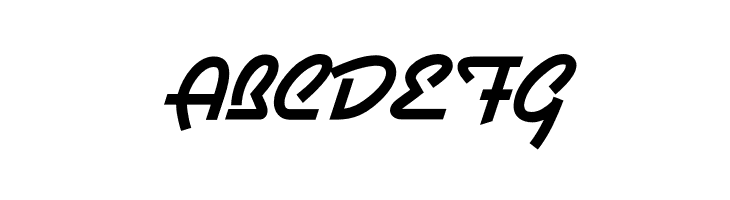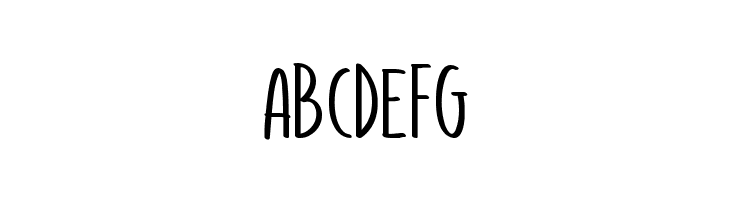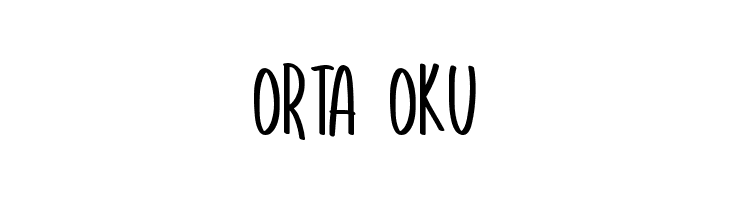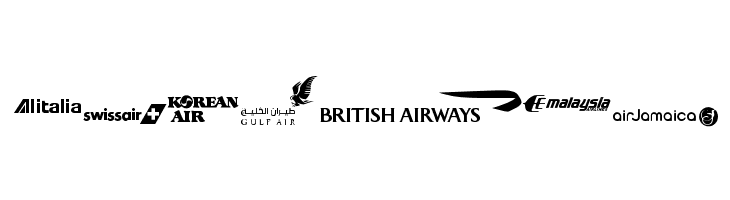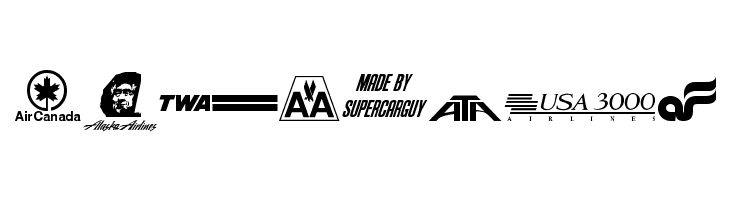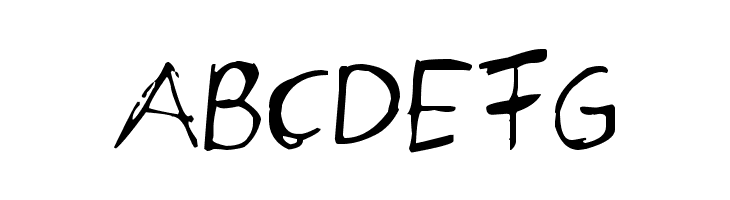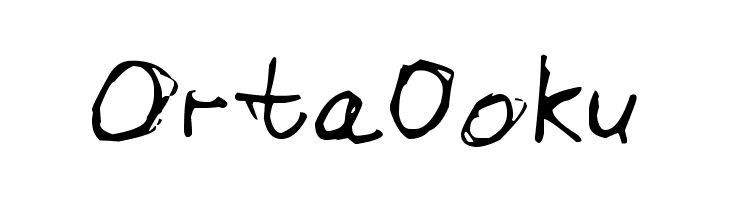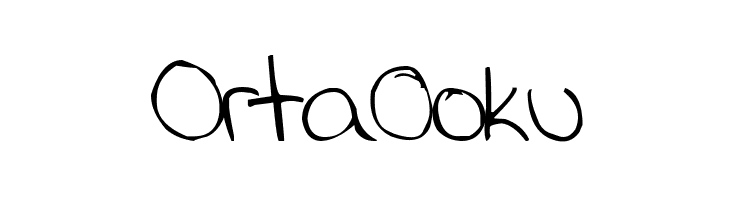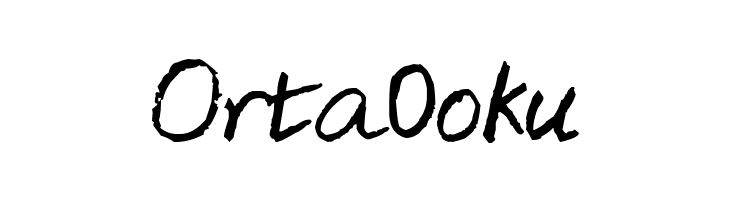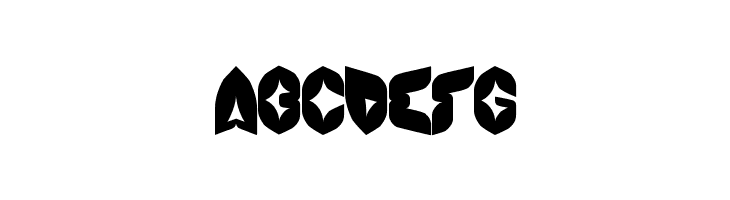
A playful, casual handwritten font with dynamic strokes and a friendly appearance.
( Aida García - www.aidascrap.blogspot.com )
A playful, handwritten font with rounded edges and a lively, informal style.
( Aida García - www.aidascrap.blogspot.com )
A playful, handwritten font with rounded, irregular characters.
A playful, handwritten font with a modern and dynamic style.
( Fonts by Steve Ferrera )
A varied set of airline logo fonts with modern, vintage, and decorative styles.
A bold, geometric font with angular shapes and a futuristic style.
A bold, cursive font with a dynamic and flowing style.